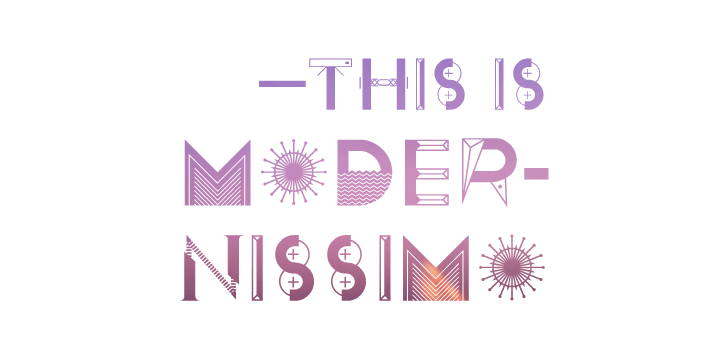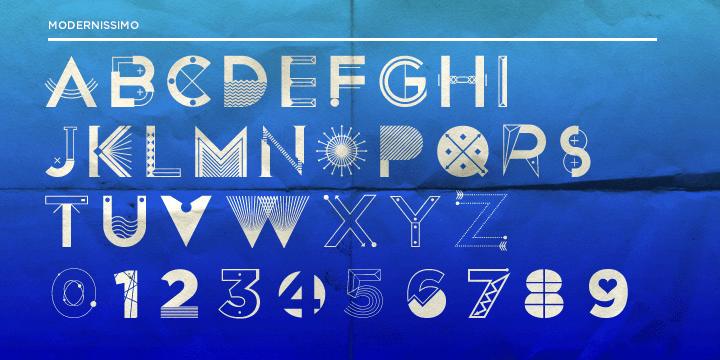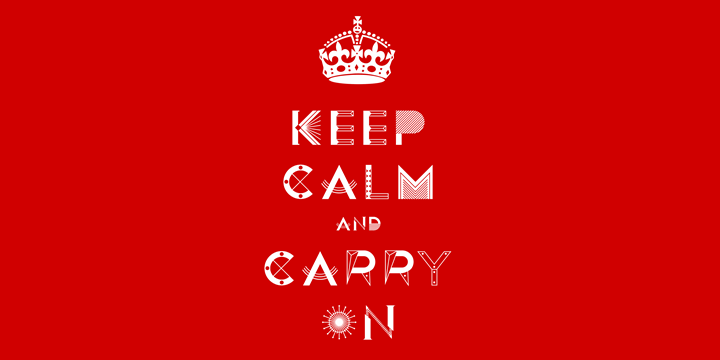
HomeFont BrosArt Deco (1910-1935)Modernissimo Art Deco (1910-1935)ContemporaryWacky Modernissimo FacebookXPinterestWhatsApp 1 of 3 About Modernissimo is a geometrical, decorative, uppercase typeface, full of symbols and icons, designed in Vienna.  DOWNLOAD NOW People also explored Avatarock Roshella Font Perfect Island Modern Handwritten Font Hi Janetta Font Serath Font Navy Bella Canvas 3005 V Neck Mockup Asmirandah Font Bluedelia Sript Font Nesha Font 338 0 TagsModernissimo Font Previous articlePaellaNext articleAdieu Mon Ami LEAVE A REPLY Cancel reply Comment: Please enter your comment! Name:* Please enter your name here Email:* You have entered an incorrect email address! Please enter your email address here Website: Save my name, email, and website in this browser for the next time I comment. Personal Use Free Abingdon Personal Use Free Read more about this font BD Alm Personal Use Free Read more about this font Lightning Script Personal Use Free Read more about this font Lover Loves Personal Use Free Read more about this font BLOG Best Fonts for T-Shirt Design – Top 2025 Picks In 2025, t-shirt design has become more than just fashion—it's a form of self-expression. Whether you're... Top 7 Google Fonts Alternatives for Faster and Privacy-Friendly Web Design (2025) Top 10 Handwritten Fonts That Elevate Your Designs Modern Sans-Serif Fonts That Brands Love in 2025